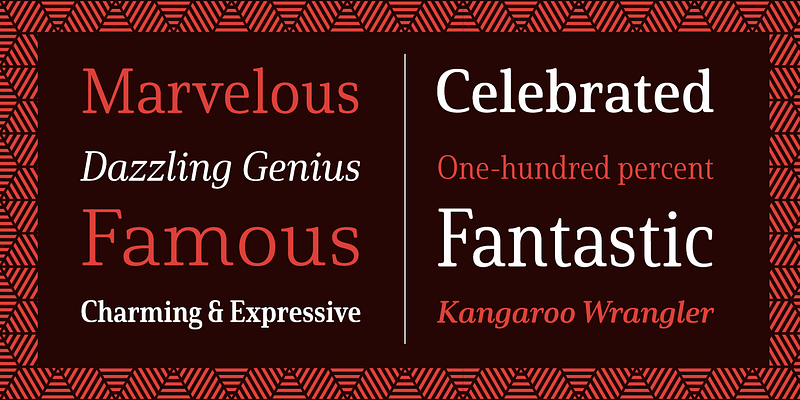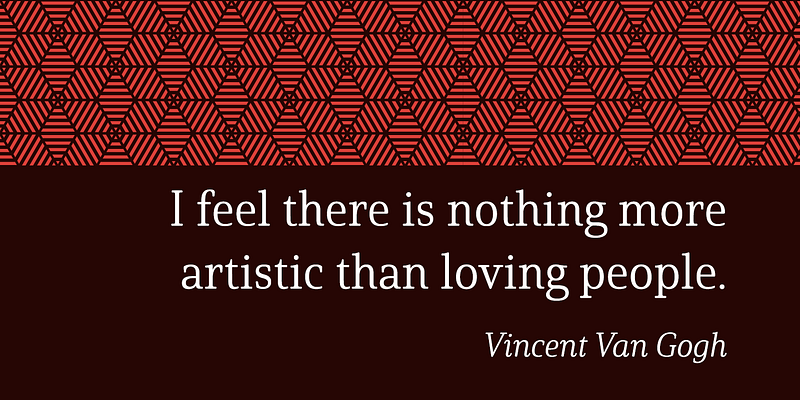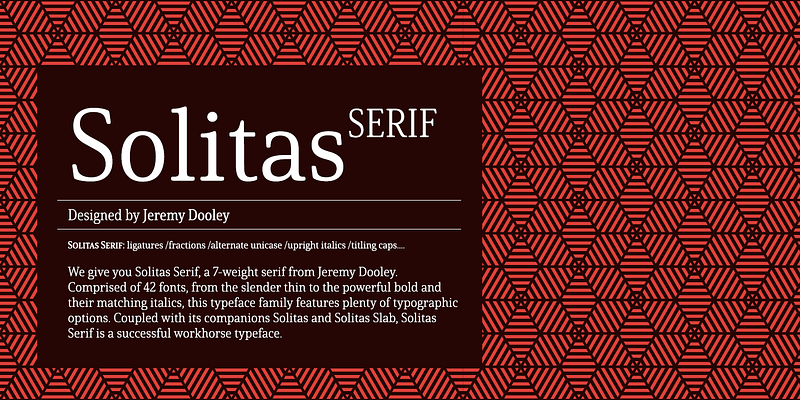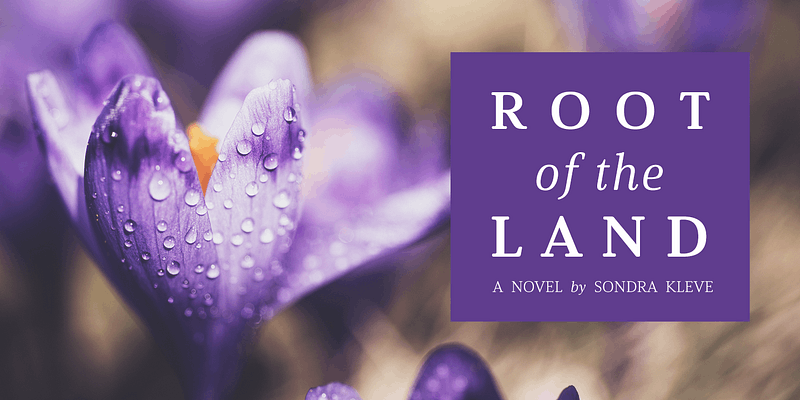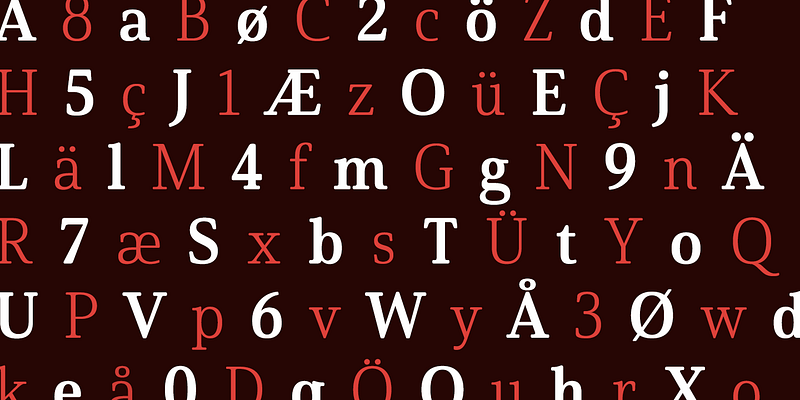
Solitas Serif, perfect for the designer needing a serif without the stiffness.
Insigne Design has a wide range of quality typefaces, including sans serifs, scripts, text faces and experimental forms. Insigne is the foundry of Jeremy Dooley. Jeremy travels widely and has lived in Europe and the Middle East and is a graduate of Savannah College of Art and Design. Jeremy currently lives in Chattanooga, Tennessee, United States.